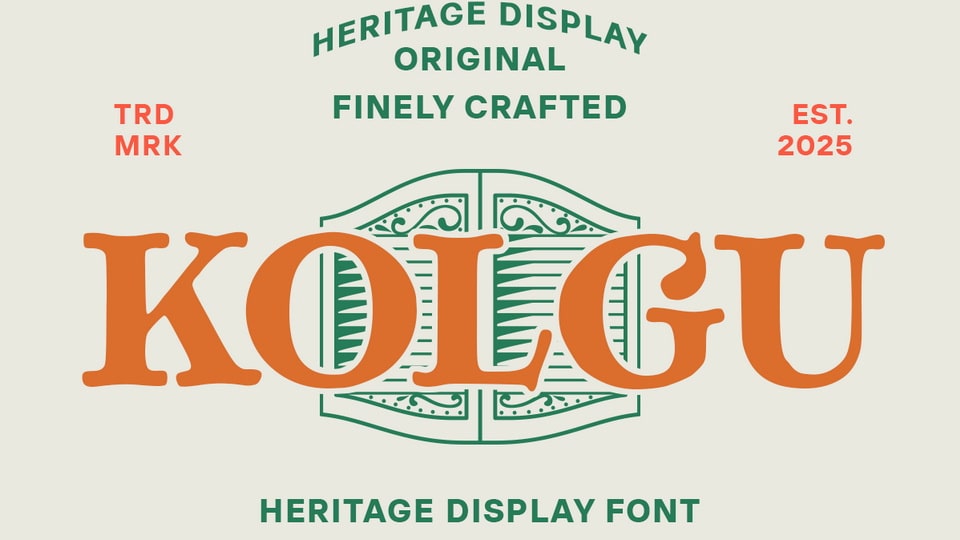
Download Kolgu font, a classic serif typeface with a timeless vintage aesthetic, blending elegance and bold character, ideal for heritage branding, editorial design.